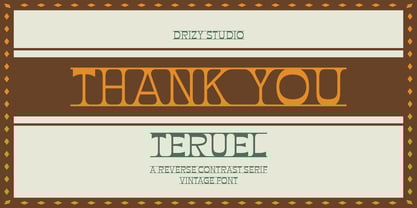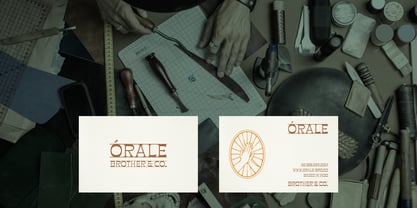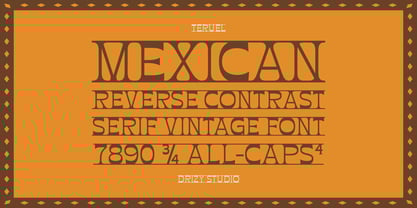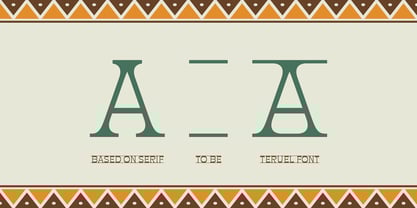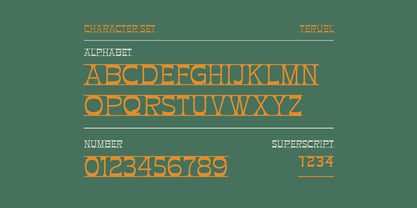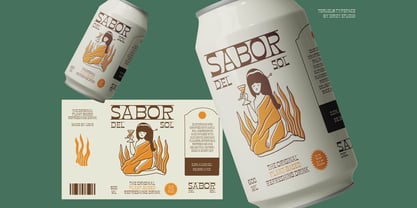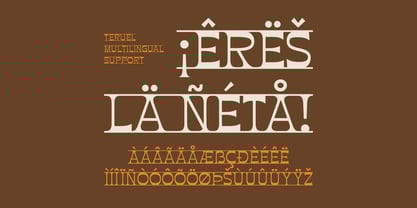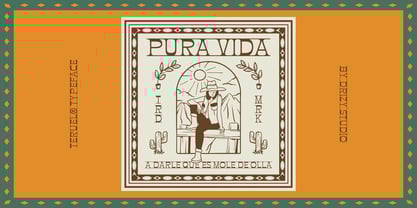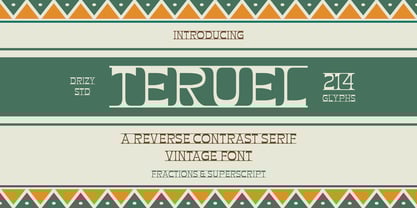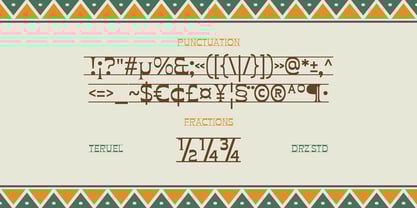
Teruel
La familia tipográfica Teruel fue diseñada por Panca Ahmadi Hasan y publicada por Drizy Font. Teruel contiene 1 estilos.
Teruel – Reverse Contrast Vintage Font
Teruel is a distinctive and eye-catching typeface that brings a unique twist to Vintage Mexican Design with its reverse contrast style. This font flips the traditional weight distribution, featuring bold horizontal strokes and lighter vertical lines, creating a striking and memorable visual impact. Inspired by classic signage and retro aesthetics, Teruel is perfect for projects that require a touch of nostalgic flair while standing out with modern boldness.
Teruel features:
• Character Set (All Caps)
• Punctuation & Numbers
• Multilingual